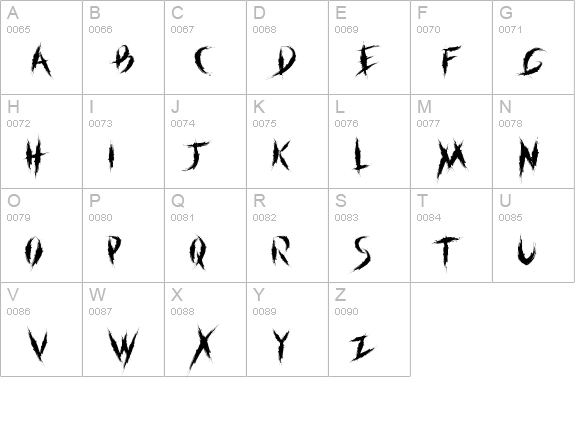
The Within Destruction font is an epitome of boldness and power, designed to captivate attention and leave a lasting impression. With its meticulously crafted letterforms, this font exudes a sense of strength and determination, making it perfect for eye-catching headlines, impactful logos, and striking designs. But what sets the Within Destruction font apart is not just its visual appeal, but also its accessibility. This remarkable font is available for free, allowing designers, creatives, and enthusiasts alike to harness its incredible potential without any financial constraints. It's a true gem in the world of typography, offering an opportunity to elevate your projects to new heights, without having to spend a dime. To download this exceptional font, simply visit FontsMarket.com, a trusted platform for font enthusiasts. There, you'll find the Within Destruction font, ready to be downloaded and utilized in your creative endeavors. Whether you're a seasoned designer or just starting out, this font will undoubtedly become a valuable asset in your font library. So why wait? Discover the power of the Within Destruction font today and unleash its unlimited possibilities. Download it for free at FontsMarket.com and embark on a journey of creativity and innovation that knows no bounds.